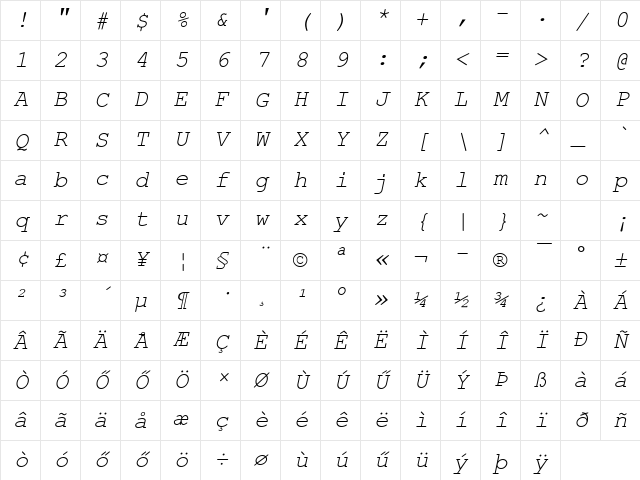
Complete H-Courier New Italic glyph index. Displaying only characters natively supported by H-Courier New Italic font.
H-Courier New uses fixed-width spacing throughout, giving it the structured, systematic character associated with coding environments and technical documentation. The slanted form adds forward momentum and visual energy.